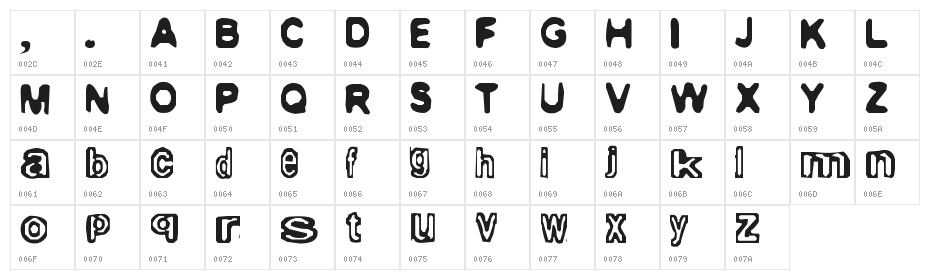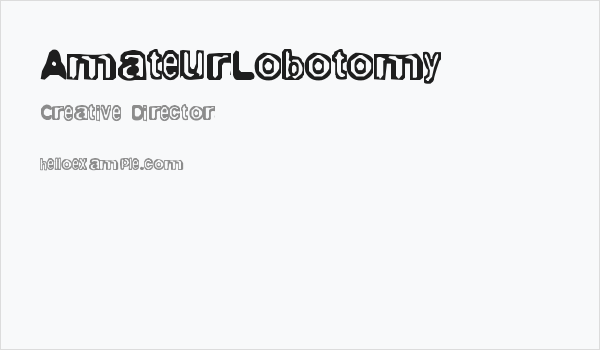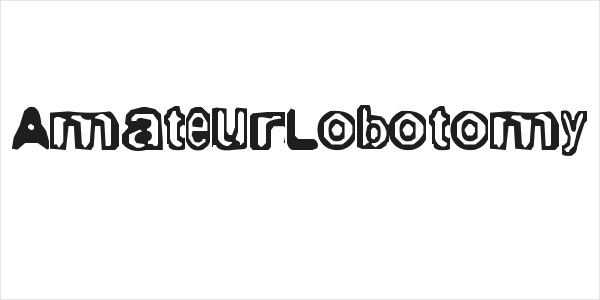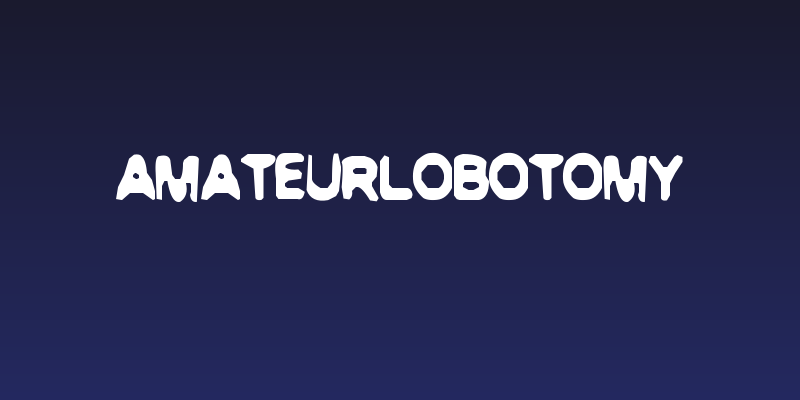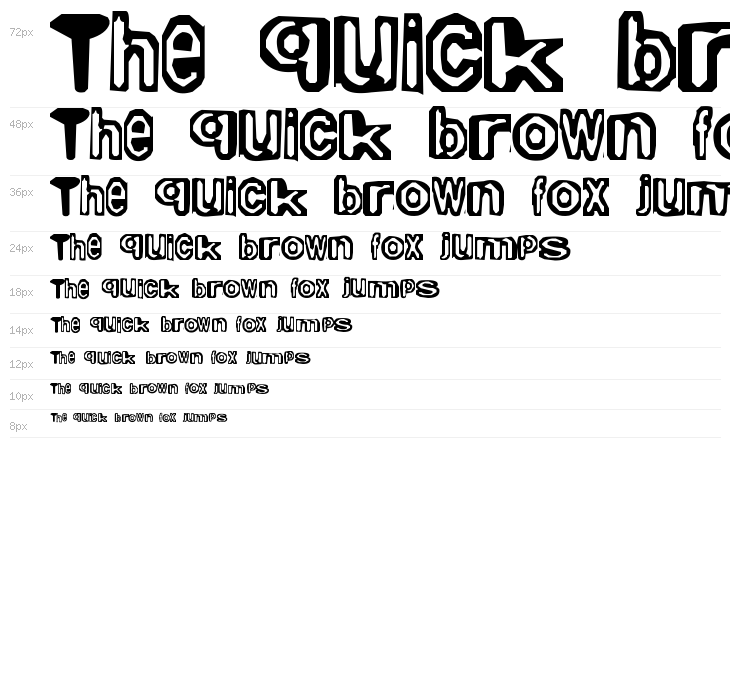
AmateurLobotomy Font
AmateurLobotomy Description
This font features a bold and playful design with a unique, hand-drawn appearance. The letters are characterized by thick strokes and irregular shapes, giving it a whimsical and artistic feel. The uppercase and lowercase letters maintain a consistent style, with some letters having exaggerated curves and angles. The font's quirky nature makes it stand out, and it includes a limited set of punctuation marks. Its overall look is both fun and eye-catching, suitable for creative projects that require a touch of personality.
| Proposed Projects | Ideal for children's book covers, playful posters, creative branding, and artistic designs. |